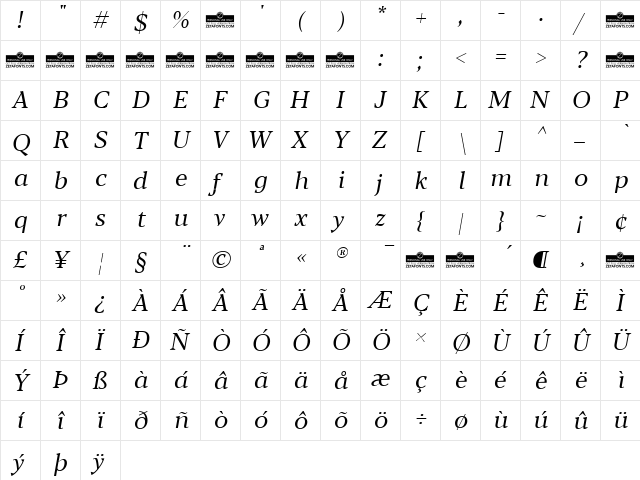
Blacker Text Book Italic
| Foundry | Cosimo Lorenzo Pancini & Francesco Canovaro |
| Designer | Cosimo Lorenzo Pancini & Francesco Canovaro |
Design Context for Blacker Text Typeface
Blacker Text offers clean, dependable letterforms without strong stylistic allegiance, making it a practical choice for designers who need flexibility. The dynamic lean of this cut emphasises speed and emphasis in any layout.